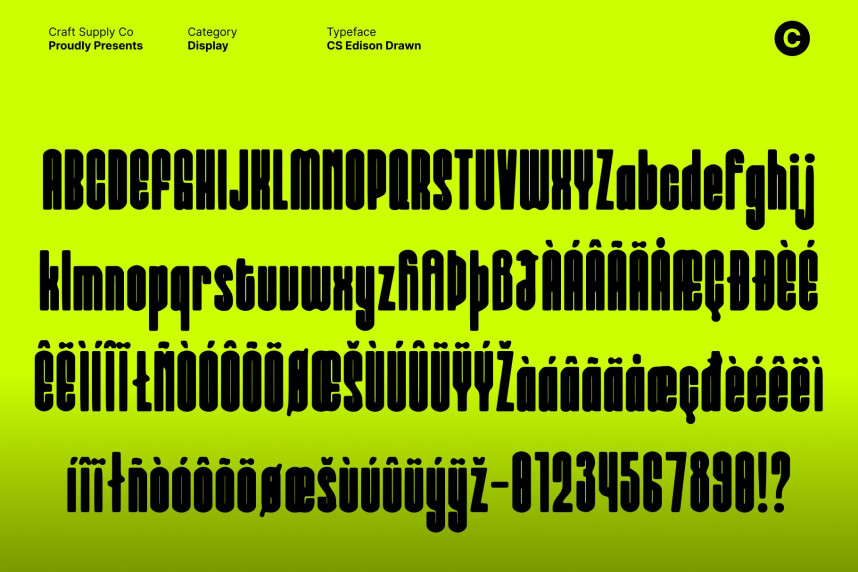
CS Edison Drawn Font
CS Edison Drawn Font – Condensed Sans Serif with Hand-Drawn Texture Compact Structure with Strong Modern Impact. This is a condensed sans serif font built for strength, clarity, and efficiency. Its compact proportions allow text to make a powerful statement even in tight spaces, making it highly effective for bold headlines and space-conscious layouts. The clean, modern construction keeps the letterforms clear and legible, while the narrow width adds intensity and visual punch to every line of text.